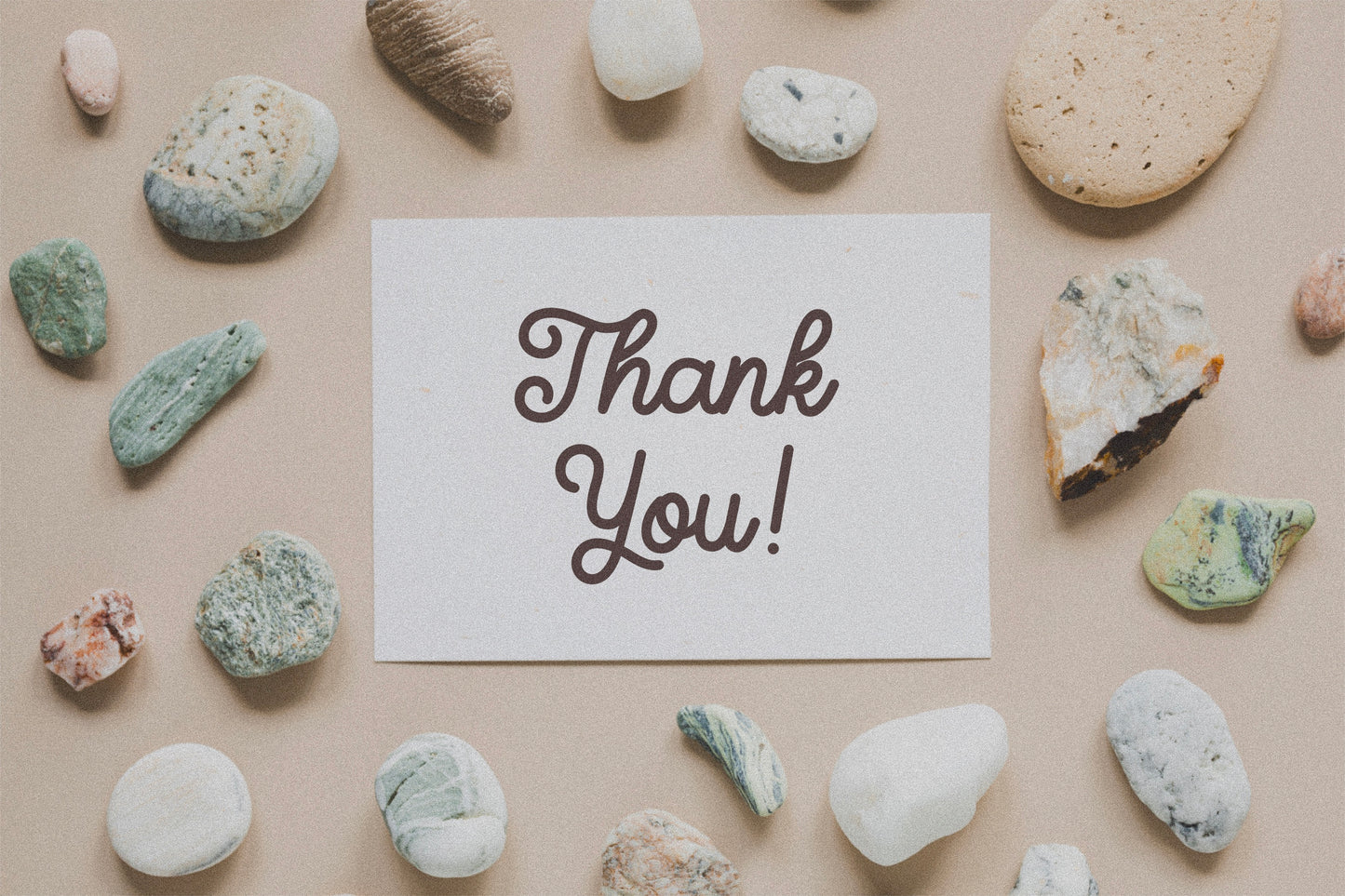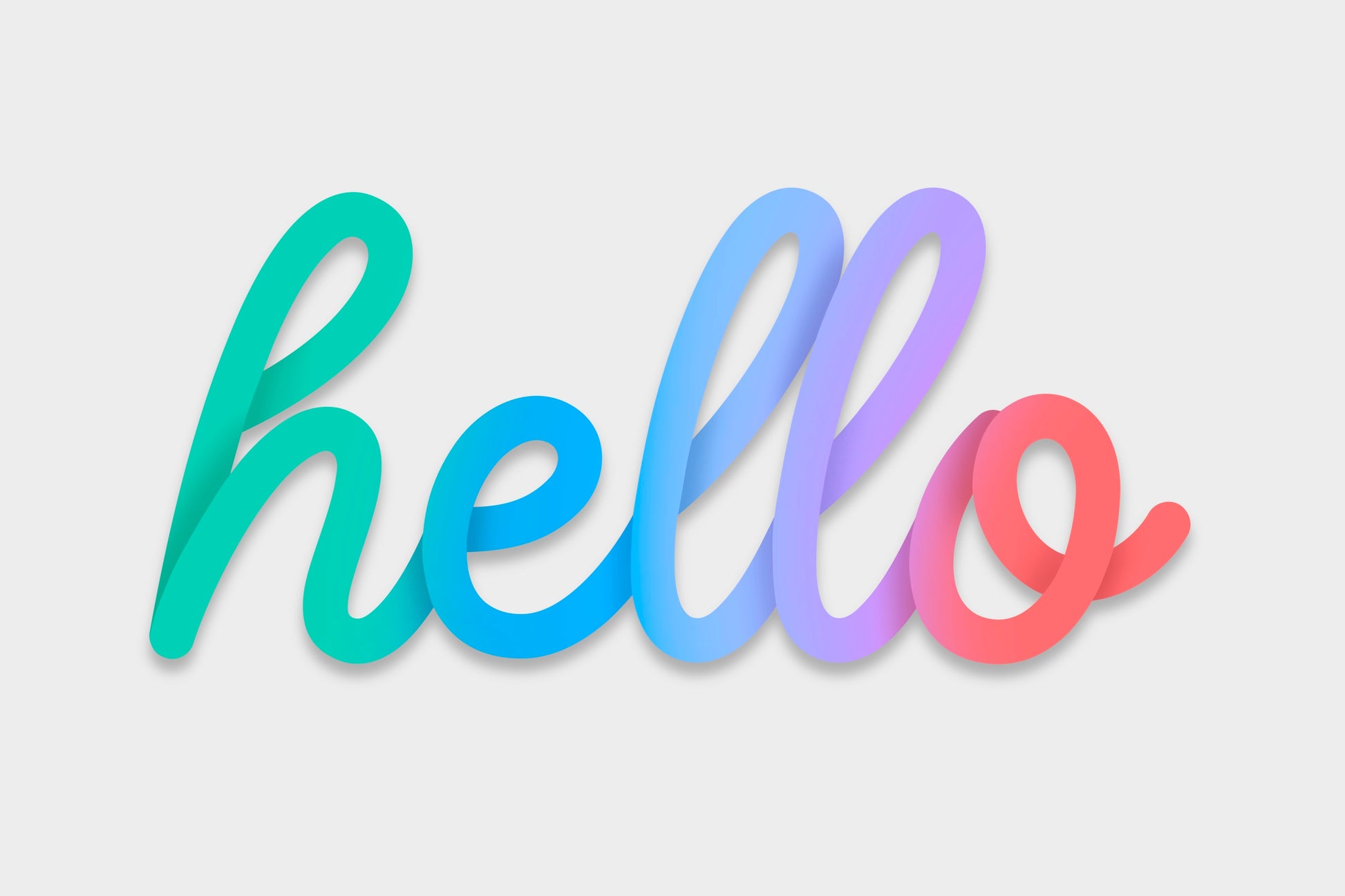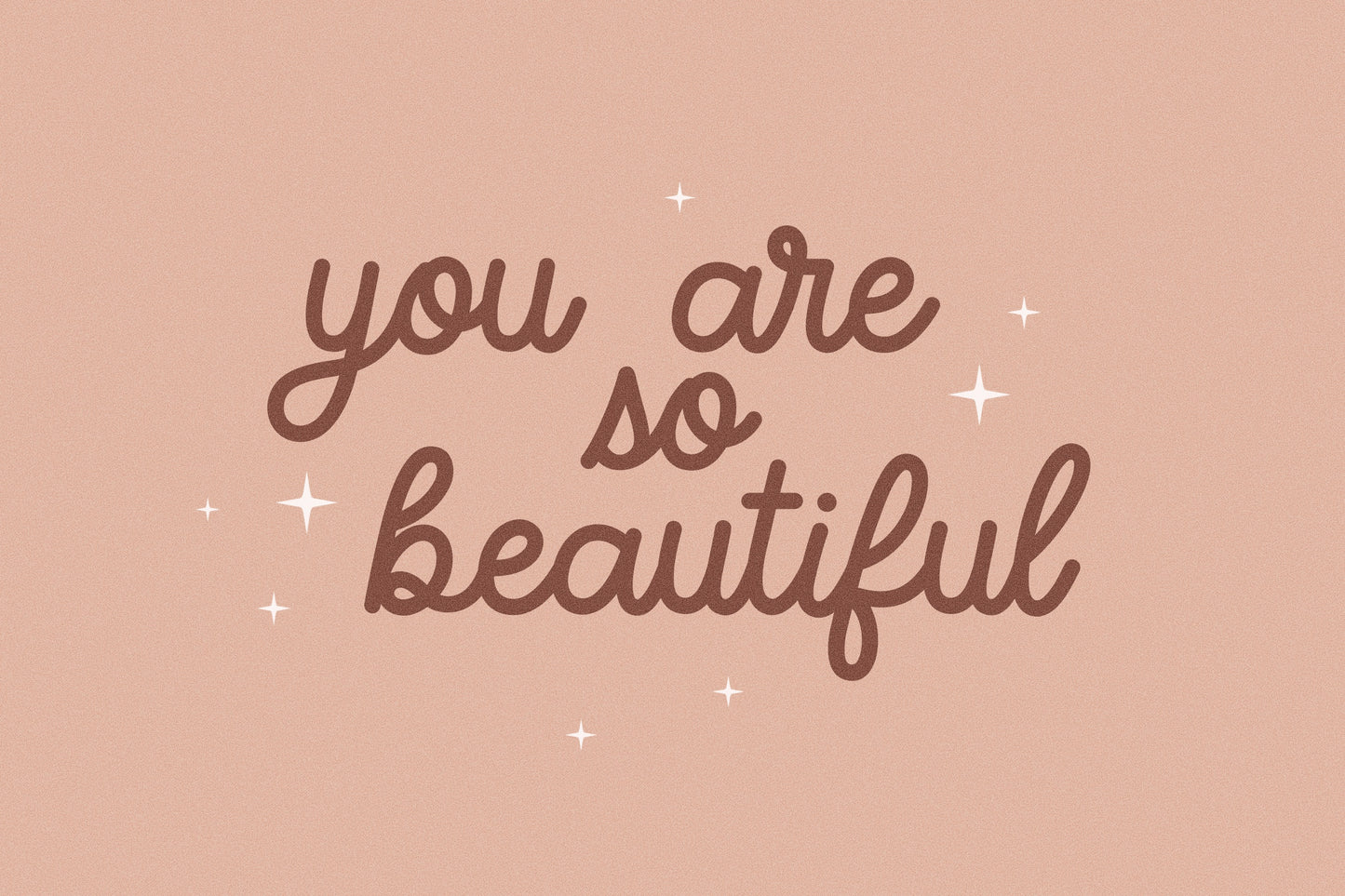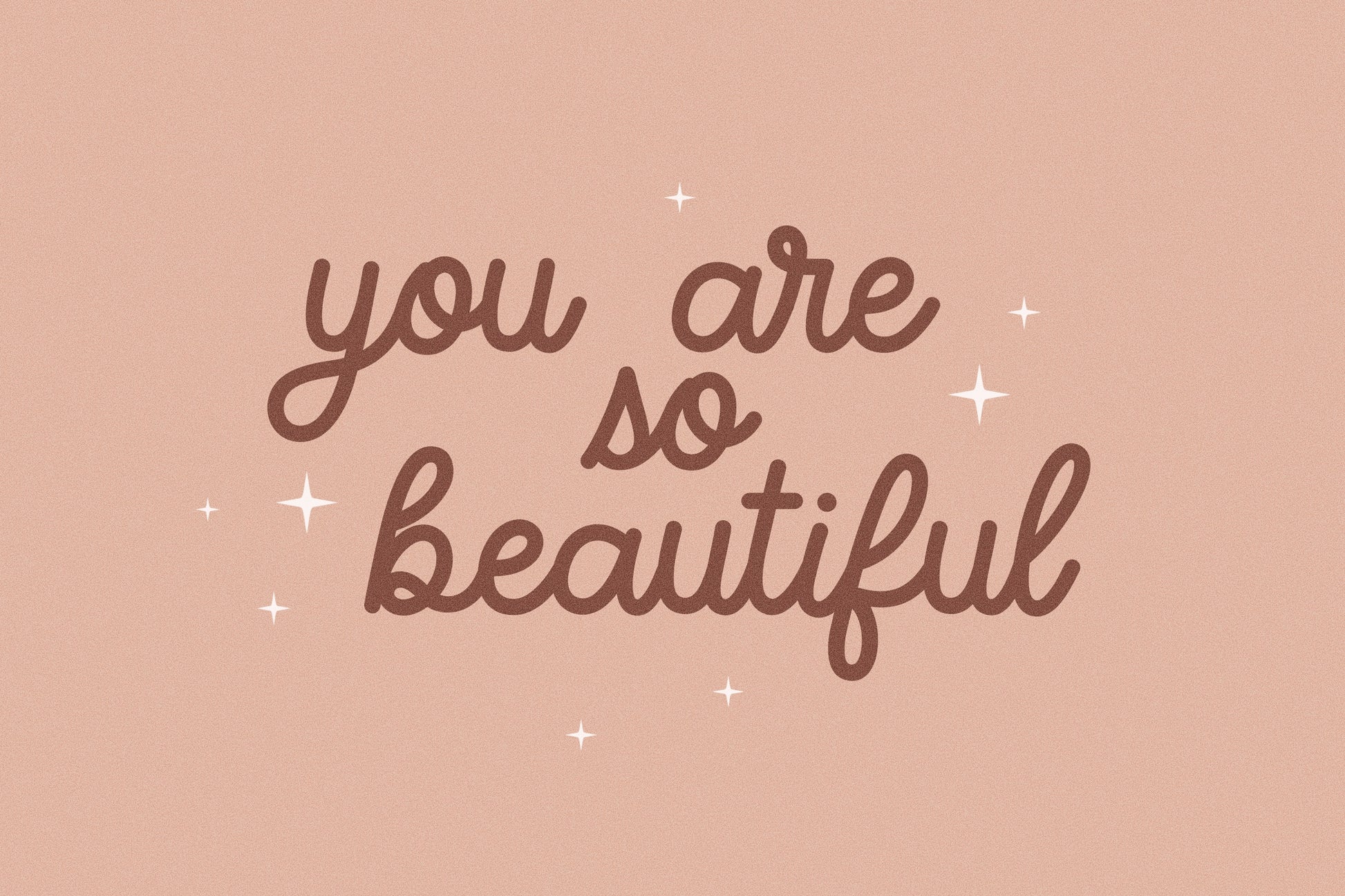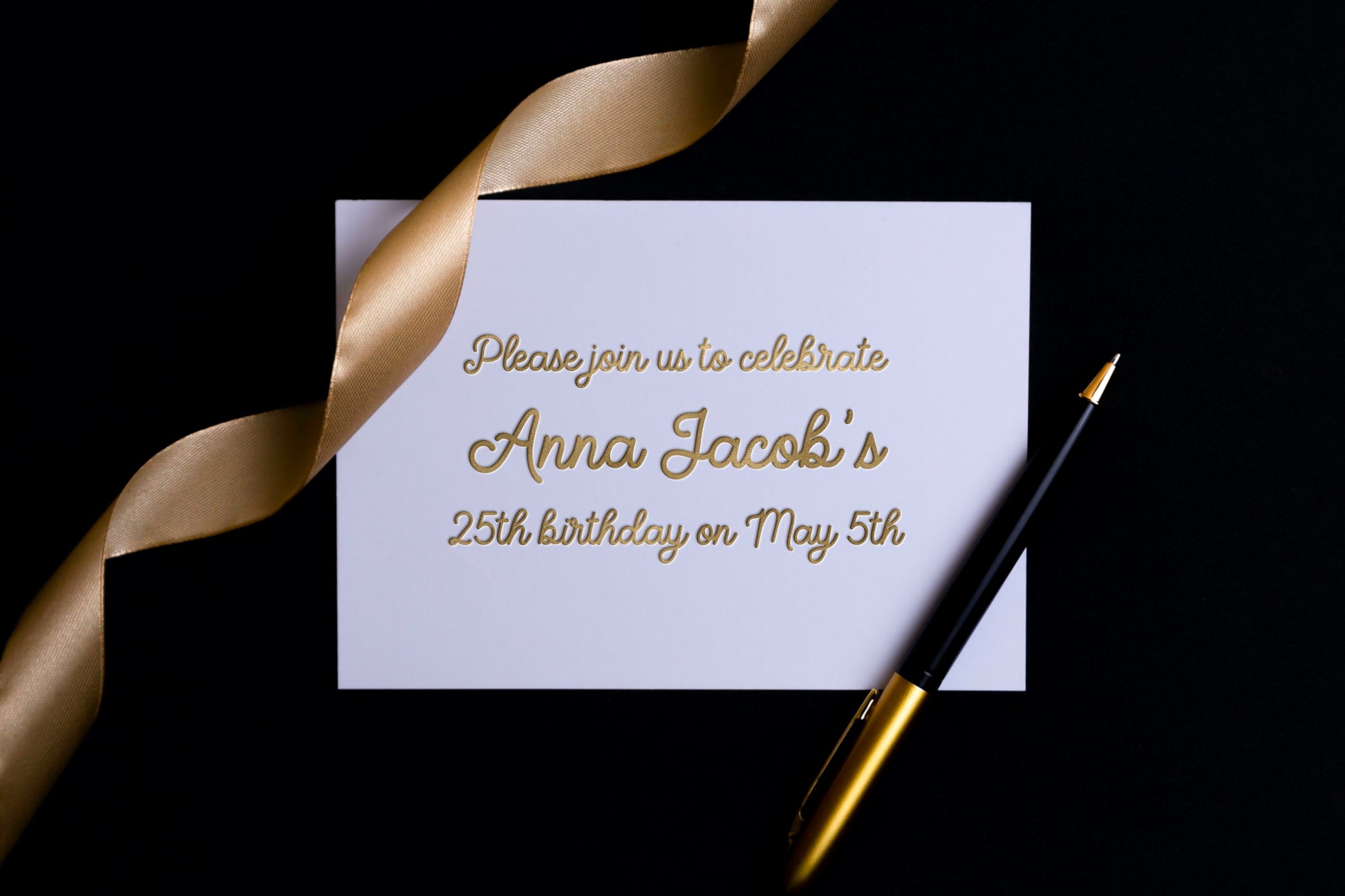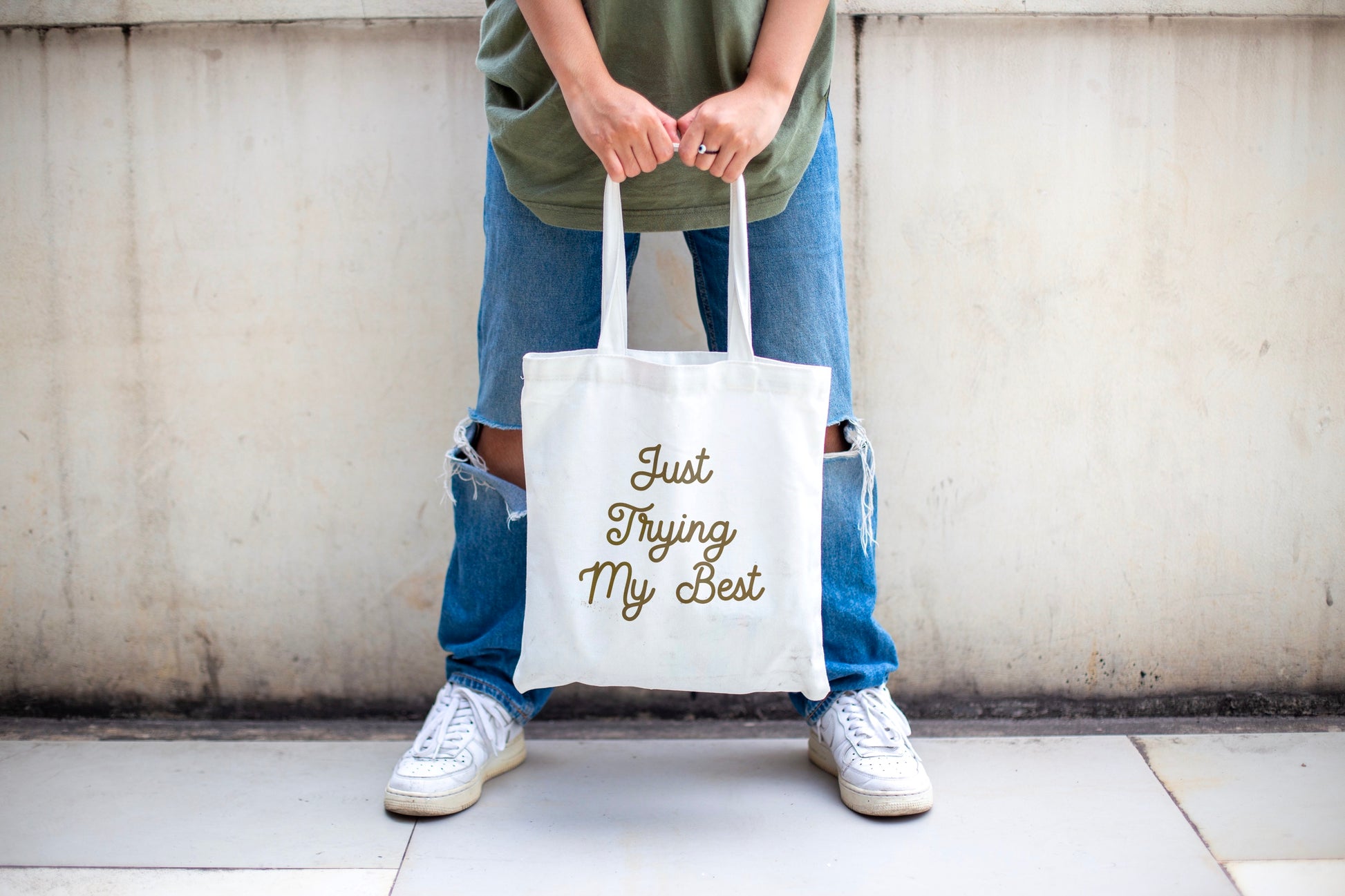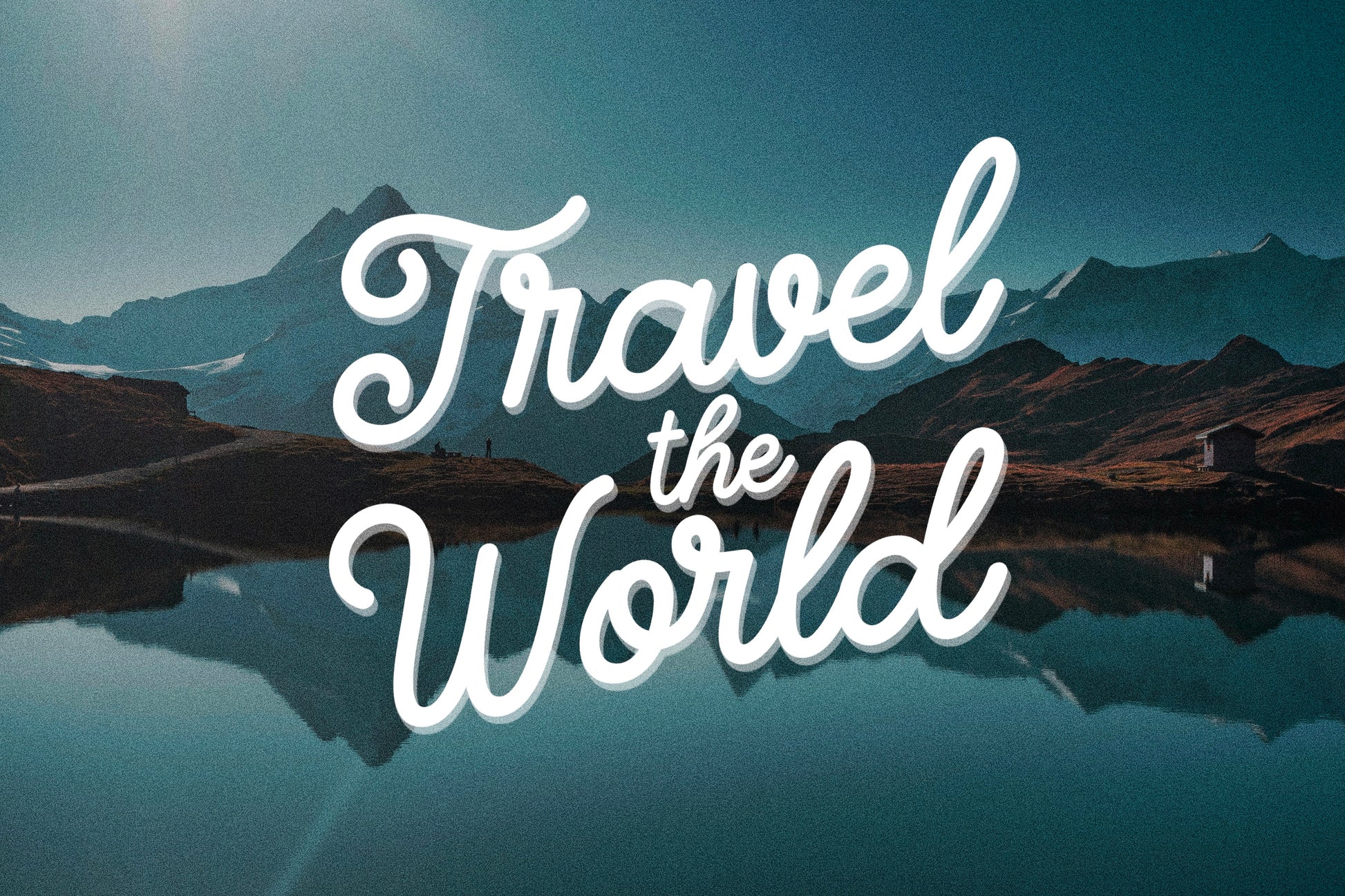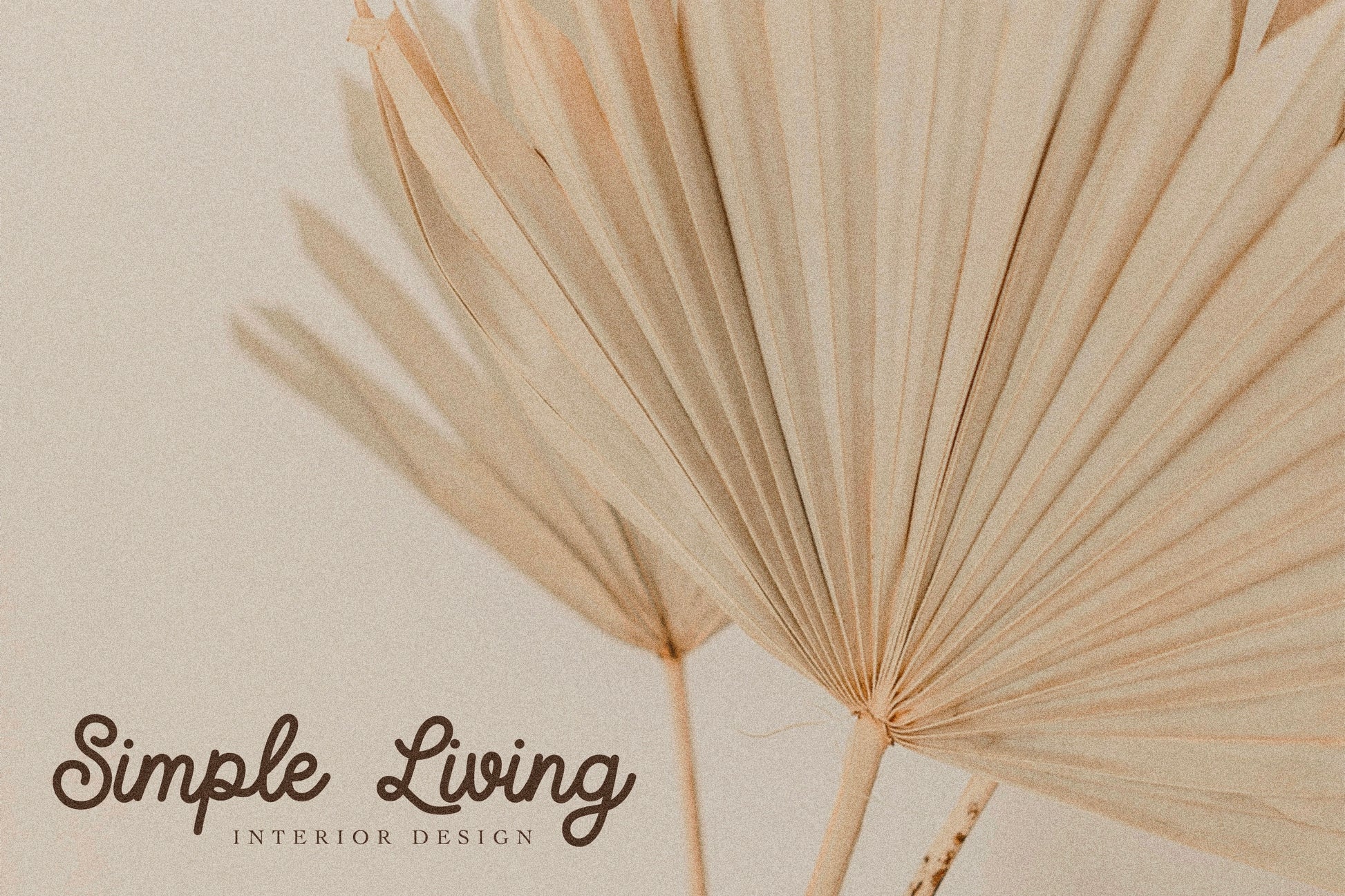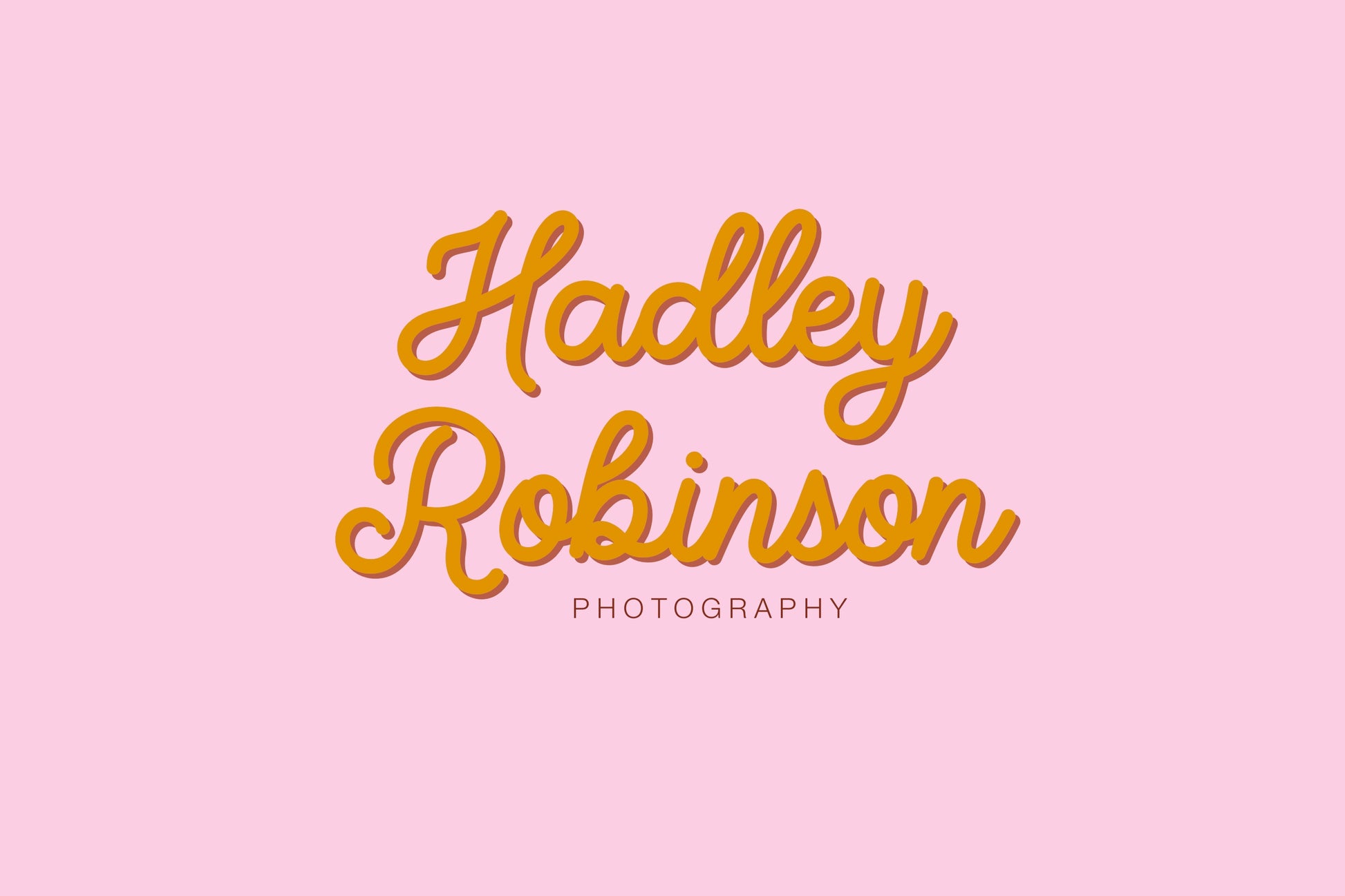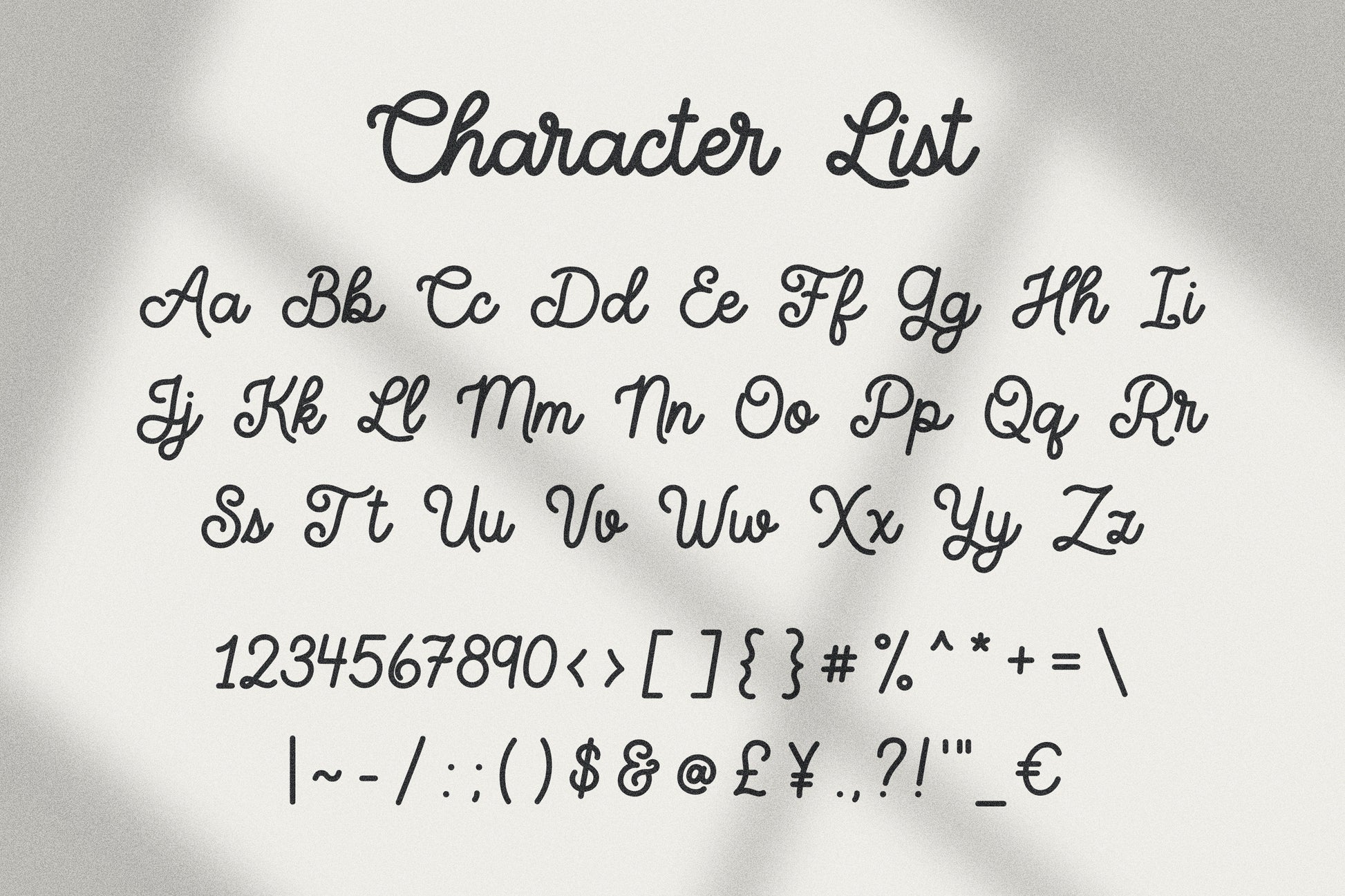
Lyrical Handwritten Script Font
Introducing the Lyrical handwritten/hand drawn font. This unique, bold monoline font will add an elegant, fun, handmade touch to your design! This versatile font is great for formal and elegant designs, but is also great for casual, informal occasions too!